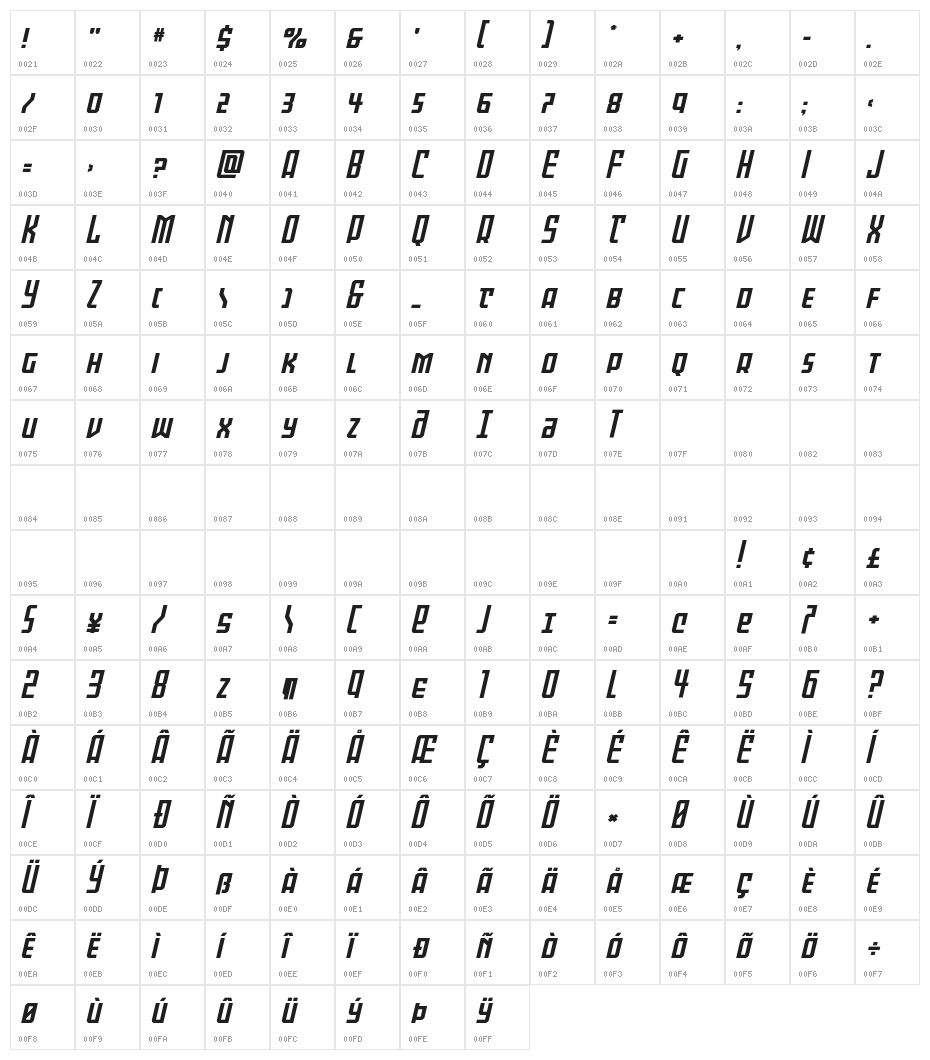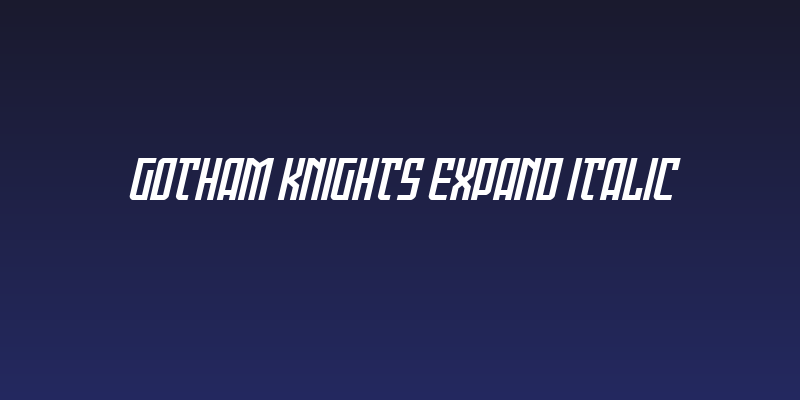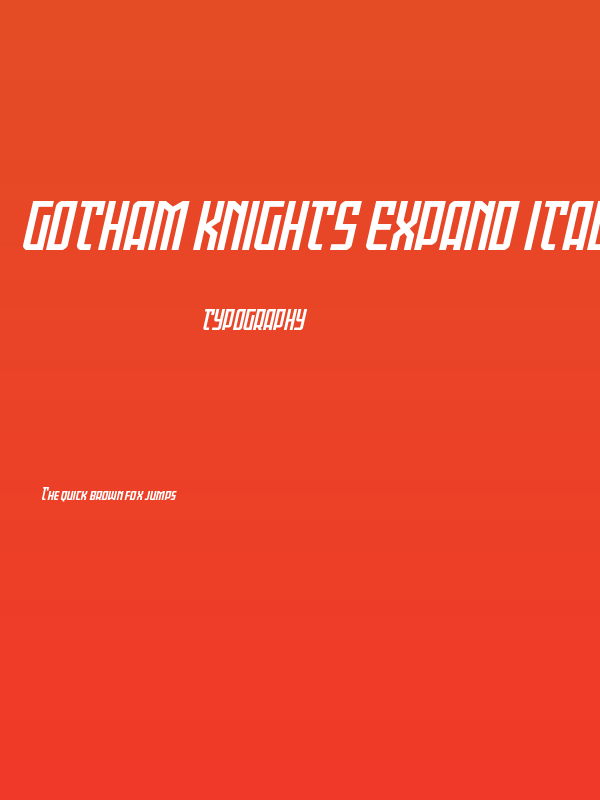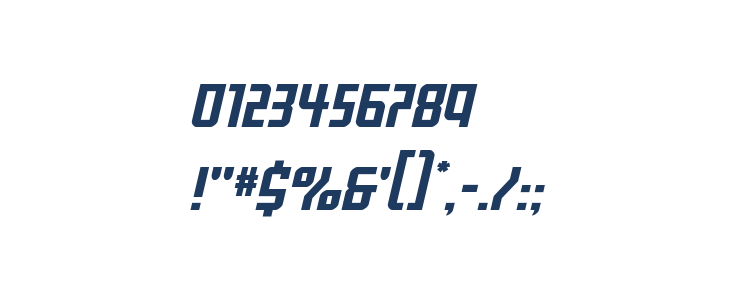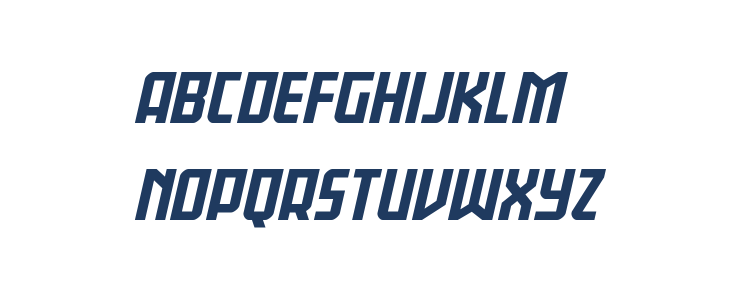
Gotham Knights Expand Italic Font
Gotham Knights Expand Italic Description
This font features a bold and dynamic style with an italicized slant, giving it a sense of movement and energy. The characters are expanded, providing a wide and impactful appearance. The angular and geometric design of the letters contributes to a modern and futuristic aesthetic. The uppercase and lowercase letters maintain a consistent style, with sharp edges and clean lines. The numerals and special characters are designed to match the bold and expansive look of the alphabet, ensuring uniformity across all text elements. This font is ideal for creating attention-grabbing headlines and titles.